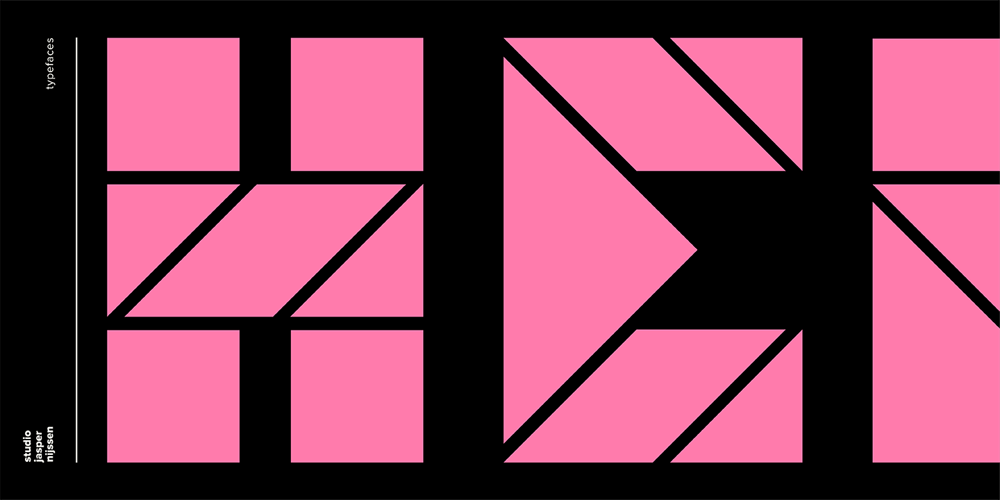
WBP Helena Font Family was designed by Jasper Nijssen and published by Studio Jasper Nijssen. WBP Helena contains 1 styles and family package options. Helena derived her curves from the old Chinese Tangram puzzle. She sure is playful, though sometimes she bites furiously. No worries! Helena may seem to be a tad crazy, but all in good moderation. Don’t go overboard, use her well and I can assure you … she’ll be worth all your effort.